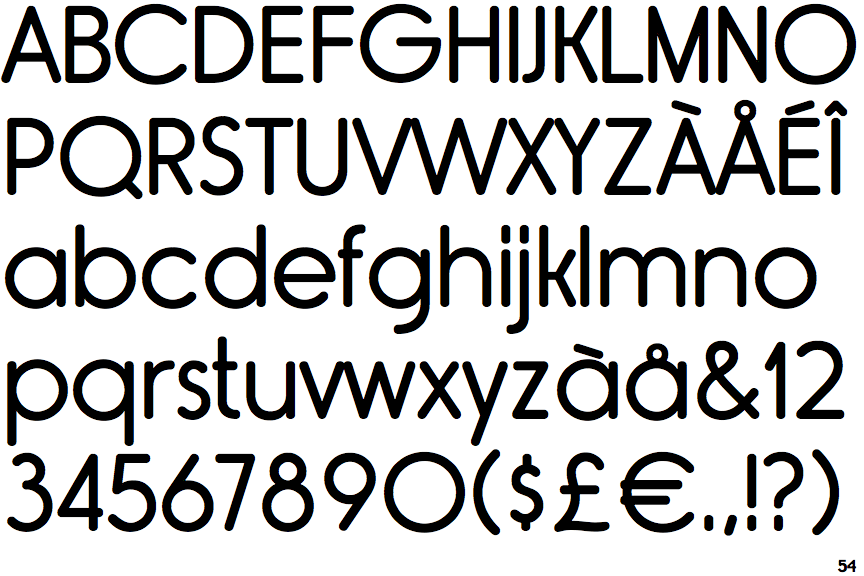
Rimouski Font . About rimouski font family introducing rimouski, the rounded geometric typeface that brings a touch of refined elegance to any design project. Use the opentype stylistic alternates feature to unleash a slew of strangely slanted characters. Its appealing letterforms and soft, precise points will add a. Use the opentype stylistic alternates feature to unleash a spate of strangely slanted characters. Rimouski is a rounded geometric typeface with a refined appearance. With its perfectly crafted letterforms and soft,. Download and install the rimouski font by typodermic fonts. Rimouski font download is available free from fontget. Download rimouski font · free for commercial use · rimouski is a rounded geometric typeface with a refined appearance. The rimouski font has been downloaded 63,359 times. Rimouski is a rounded geometric font family. Rimouski is a sans serif type font that can be used on any device such as pc, mac, linux, ios. Rimouski is a rounded geometric font family.
Rimouski is a rounded geometric font family. Rimouski font download is available free from fontget. Use the opentype stylistic alternates feature to unleash a spate of strangely slanted characters. Rimouski is a rounded geometric font family. With its perfectly crafted letterforms and soft,. Download rimouski font · free for commercial use · rimouski is a rounded geometric typeface with a refined appearance. Its appealing letterforms and soft, precise points will add a. Download and install the rimouski font by typodermic fonts. About rimouski font family introducing rimouski, the rounded geometric typeface that brings a touch of refined elegance to any design project. The rimouski font has been downloaded 63,359 times.
Rimouski Font With its perfectly crafted letterforms and soft,. Rimouski is a rounded geometric font family. Rimouski is a sans serif type font that can be used on any device such as pc, mac, linux, ios. Rimouski is a rounded geometric typeface with a refined appearance. Download rimouski font · free for commercial use · rimouski is a rounded geometric typeface with a refined appearance. Rimouski is a rounded geometric font family. With its perfectly crafted letterforms and soft,. Use the opentype stylistic alternates feature to unleash a slew of strangely slanted characters. Download and install the rimouski font by typodermic fonts. The rimouski font has been downloaded 63,359 times. Use the opentype stylistic alternates feature to unleash a spate of strangely slanted characters. Its appealing letterforms and soft, precise points will add a. Rimouski font download is available free from fontget. About rimouski font family introducing rimouski, the rounded geometric typeface that brings a touch of refined elegance to any design project.
Rimouski Font · 1001 Fonts Rimouski Font Rimouski is a rounded geometric typeface with a refined appearance. Rimouski is a sans serif type font that can be used on any device such as pc, mac, linux, ios. Rimouski font download is available free from fontget. Download and install the rimouski font by typodermic fonts. Its appealing letterforms and soft, precise points will add a. Rimouski is a. Rimouski Font.
Rimouski Font All Free Fonts Rimouski Font Rimouski is a rounded geometric typeface with a refined appearance. With its perfectly crafted letterforms and soft,. Download and install the rimouski font by typodermic fonts. Download rimouski font · free for commercial use · rimouski is a rounded geometric typeface with a refined appearance. Rimouski is a rounded geometric font family. Use the opentype stylistic alternates feature to unleash. Rimouski Font.
Rimouski Font Download Fonts4Free Rimouski Font About rimouski font family introducing rimouski, the rounded geometric typeface that brings a touch of refined elegance to any design project. Rimouski is a sans serif type font that can be used on any device such as pc, mac, linux, ios. Use the opentype stylistic alternates feature to unleash a slew of strangely slanted characters. The rimouski font has been. Rimouski Font.
Rimouski font Font Tr Rimouski Font Rimouski is a sans serif type font that can be used on any device such as pc, mac, linux, ios. Its appealing letterforms and soft, precise points will add a. Rimouski is a rounded geometric font family. The rimouski font has been downloaded 63,359 times. About rimouski font family introducing rimouski, the rounded geometric typeface that brings a touch of. Rimouski Font.
Rimouski font Font Tr Rimouski Font Download and install the rimouski font by typodermic fonts. Its appealing letterforms and soft, precise points will add a. Rimouski is a sans serif type font that can be used on any device such as pc, mac, linux, ios. Download rimouski font · free for commercial use · rimouski is a rounded geometric typeface with a refined appearance. The rimouski. Rimouski Font.
Rimouski Font · 1001 Fonts Rimouski Font Download and install the rimouski font by typodermic fonts. Rimouski font download is available free from fontget. About rimouski font family introducing rimouski, the rounded geometric typeface that brings a touch of refined elegance to any design project. Rimouski is a rounded geometric typeface with a refined appearance. Download rimouski font · free for commercial use · rimouski is a. Rimouski Font.
Rimouski Font · 1001 Fonts Rimouski Font Its appealing letterforms and soft, precise points will add a. Rimouski is a rounded geometric font family. Use the opentype stylistic alternates feature to unleash a spate of strangely slanted characters. Rimouski is a rounded geometric font family. Rimouski is a sans serif type font that can be used on any device such as pc, mac, linux, ios. The rimouski. Rimouski Font.
Rimouski Font Find fonts, Fonts alphabet, Bride and groom glasses Rimouski Font Download rimouski font · free for commercial use · rimouski is a rounded geometric typeface with a refined appearance. Rimouski is a sans serif type font that can be used on any device such as pc, mac, linux, ios. Rimouski is a rounded geometric typeface with a refined appearance. About rimouski font family introducing rimouski, the rounded geometric typeface that. Rimouski Font.
Rimouski Font Bypeople Rimouski Font Rimouski is a rounded geometric typeface with a refined appearance. Rimouski is a sans serif type font that can be used on any device such as pc, mac, linux, ios. Rimouski is a rounded geometric font family. Its appealing letterforms and soft, precise points will add a. Use the opentype stylistic alternates feature to unleash a slew of strangely slanted. Rimouski Font.
Rimouski font Font Tr Rimouski Font Its appealing letterforms and soft, precise points will add a. Rimouski is a rounded geometric font family. The rimouski font has been downloaded 63,359 times. About rimouski font family introducing rimouski, the rounded geometric typeface that brings a touch of refined elegance to any design project. Download rimouski font · free for commercial use · rimouski is a rounded geometric. Rimouski Font.
Rimouski Font Download Free for Desktop & font Rimouski Font The rimouski font has been downloaded 63,359 times. Rimouski is a rounded geometric typeface with a refined appearance. Rimouski is a rounded geometric font family. Use the opentype stylistic alternates feature to unleash a slew of strangely slanted characters. With its perfectly crafted letterforms and soft,. Download rimouski font · free for commercial use · rimouski is a rounded geometric. Rimouski Font.
From typodermicfonts.com
Rimouski Typodermic Fonts Rimouski Font Rimouski font download is available free from fontget. About rimouski font family introducing rimouski, the rounded geometric typeface that brings a touch of refined elegance to any design project. Rimouski is a sans serif type font that can be used on any device such as pc, mac, linux, ios. Rimouski is a rounded geometric font family. With its perfectly crafted. Rimouski Font.
Rimouski Font · 1001 Fonts Rimouski Font The rimouski font has been downloaded 63,359 times. Rimouski font download is available free from fontget. Rimouski is a rounded geometric typeface with a refined appearance. Rimouski is a rounded geometric font family. Rimouski is a sans serif type font that can be used on any device such as pc, mac, linux, ios. Use the opentype stylistic alternates feature to. Rimouski Font.
From digitizingwithlove.com
Rimouski Light™ block embroidery font dst/exp/jef/hus/vip/vp3/xxx 15 s Rimouski Font Rimouski is a rounded geometric font family. Rimouski is a rounded geometric typeface with a refined appearance. Rimouski font download is available free from fontget. Use the opentype stylistic alternates feature to unleash a spate of strangely slanted characters. With its perfectly crafted letterforms and soft,. About rimouski font family introducing rimouski, the rounded geometric typeface that brings a touch. Rimouski Font.
Rimouski font Rimouski Font Use the opentype stylistic alternates feature to unleash a slew of strangely slanted characters. Its appealing letterforms and soft, precise points will add a. Use the opentype stylistic alternates feature to unleash a spate of strangely slanted characters. About rimouski font family introducing rimouski, the rounded geometric typeface that brings a touch of refined elegance to any design project. Rimouski. Rimouski Font.
Rimouski font Font Tr Rimouski Font Download and install the rimouski font by typodermic fonts. Its appealing letterforms and soft, precise points will add a. With its perfectly crafted letterforms and soft,. Rimouski is a rounded geometric typeface with a refined appearance. Download rimouski font · free for commercial use · rimouski is a rounded geometric typeface with a refined appearance. Rimouski is a rounded geometric. Rimouski Font.
Rimouski Font And Text Generator Pngtree Rimouski Font Rimouski is a rounded geometric font family. Download and install the rimouski font by typodermic fonts. Download rimouski font · free for commercial use · rimouski is a rounded geometric typeface with a refined appearance. The rimouski font has been downloaded 63,359 times. Rimouski is a sans serif type font that can be used on any device such as pc,. Rimouski Font.
From typodermicfonts.com
Rimouski Typodermic Fonts Rimouski Font Rimouski is a rounded geometric font family. Its appealing letterforms and soft, precise points will add a. Rimouski is a rounded geometric typeface with a refined appearance. Use the opentype stylistic alternates feature to unleash a spate of strangely slanted characters. Download and install the rimouski font by typodermic fonts. Rimouski is a sans serif type font that can be. Rimouski Font.
Rimouski Fonts Shmonts Rimouski Font Rimouski is a sans serif type font that can be used on any device such as pc, mac, linux, ios. Rimouski is a rounded geometric font family. Use the opentype stylistic alternates feature to unleash a spate of strangely slanted characters. Download and install the rimouski font by typodermic fonts. About rimouski font family introducing rimouski, the rounded geometric typeface. Rimouski Font.
Rimouski Premium Font Urban Fonts Rimouski Font About rimouski font family introducing rimouski, the rounded geometric typeface that brings a touch of refined elegance to any design project. Rimouski is a rounded geometric font family. Rimouski is a sans serif type font that can be used on any device such as pc, mac, linux, ios. With its perfectly crafted letterforms. Rimouski Font.
Identifont Rimouski Font Rimouski font download is available free from fontget. Download rimouski font · free for commercial use · rimouski is a rounded geometric typeface with a refined appearance. Download and install the rimouski font by typodermic fonts. Rimouski is a rounded geometric font family. With its perfectly crafted letterforms and soft,. Rimouski is a sans serif type font that can be. Rimouski Font.
Rimouski Fonts Shmonts Rimouski Font Rimouski is a rounded geometric font family. Rimouski font download is available free from fontget. With its perfectly crafted letterforms and soft,. The rimouski font has been downloaded 63,359 times. Its appealing letterforms and soft, precise points will add a. Use the opentype stylistic alternates feature to unleash a slew of strangely slanted characters. Rimouski is a rounded geometric typeface. Rimouski Font.
Download Rimouski font Rimouski Font Use the opentype stylistic alternates feature to unleash a slew of strangely slanted characters. The rimouski font has been downloaded 63,359 times. Rimouski is a rounded geometric font family. Its appealing letterforms and soft, precise points will add a. Download and install the rimouski font by typodermic fonts. About rimouski font family introducing rimouski, the rounded geometric typeface that brings. Rimouski Font.
Rimouski font Font Tr Rimouski Font About rimouski font family introducing rimouski, the rounded geometric typeface that brings a touch of refined elegance to any design project. Use the opentype stylistic alternates feature to unleash a slew of strangely slanted characters. Rimouski is a sans serif type font that can be used on any device such as pc, mac, linux, ios. Its appealing letterforms and soft,. Rimouski Font.
Fuente Rimouski Descargar Rimouski Font Its appealing letterforms and soft, precise points will add a. Rimouski font download is available free from fontget. Download and install the rimouski font by typodermic fonts. With its perfectly crafted letterforms and soft,. Rimouski is a rounded geometric font family. Download rimouski font · free for commercial use · rimouski is a rounded geometric typeface with a refined appearance.. Rimouski Font.
Rimouski Light Regular Download For Free, View Sample Text, Rating Rimouski Font Use the opentype stylistic alternates feature to unleash a spate of strangely slanted characters. Rimouski is a rounded geometric font family. Rimouski is a rounded geometric typeface with a refined appearance. With its perfectly crafted letterforms and soft,. Its appealing letterforms and soft, precise points will add a. Rimouski is a sans serif type font that can be used on. Rimouski Font.
Rimouski Font Family by Typodermic Font Bros Rimouski Font Use the opentype stylistic alternates feature to unleash a spate of strangely slanted characters. About rimouski font family introducing rimouski, the rounded geometric typeface that brings a touch of refined elegance to any design project. Download and install the rimouski font by typodermic fonts. Rimouski is a rounded geometric font family. Rimouski font download is available free from fontget. The. Rimouski Font.
Rimouski Font And Text Generator Pngtree Rimouski Font The rimouski font has been downloaded 63,359 times. Its appealing letterforms and soft, precise points will add a. Rimouski is a rounded geometric typeface with a refined appearance. Rimouski is a rounded geometric font family. About rimouski font family introducing rimouski, the rounded geometric typeface that brings a touch of refined elegance to any design project. Rimouski is a sans. Rimouski Font.
Download free RimouskiSb Regular font Rimouski SemiBold.ttf Rimouski Font Download and install the rimouski font by typodermic fonts. With its perfectly crafted letterforms and soft,. Its appealing letterforms and soft, precise points will add a. Rimouski is a rounded geometric font family. Use the opentype stylistic alternates feature to unleash a spate of strangely slanted characters. Use the opentype stylistic alternates feature. Rimouski Font.
Rimouski font by Typodermic Fonts FontRiver Rimouski Font About rimouski font family introducing rimouski, the rounded geometric typeface that brings a touch of refined elegance to any design project. Use the opentype stylistic alternates feature to unleash a slew of strangely slanted characters. Download and install the rimouski font by typodermic fonts. Download rimouski font · free for commercial use · rimouski is a rounded geometric typeface with. Rimouski Font.
Download Rimouski font Rimouski Font With its perfectly crafted letterforms and soft,. Rimouski is a rounded geometric font family. Rimouski is a sans serif type font that can be used on any device such as pc, mac, linux, ios. Rimouski is a rounded geometric typeface with a refined appearance. Rimouski font download is available free from fontget. Its appealing letterforms and soft, precise points will. Rimouski Font.
Rimouski Font 3 Font 90 » Free Download Vector Stock Image Rimouski Font Rimouski font download is available free from fontget. The rimouski font has been downloaded 63,359 times. Rimouski is a rounded geometric typeface with a refined appearance. Rimouski is a rounded geometric font family. About rimouski font family introducing rimouski, the rounded geometric typeface that brings a touch of refined elegance to any design project. Use the opentype stylistic alternates feature. Rimouski Font.
Rimouski Font All Free Fonts Rimouski Font Its appealing letterforms and soft, precise points will add a. Download rimouski font · free for commercial use · rimouski is a rounded geometric typeface with a refined appearance. Use the opentype stylistic alternates feature to unleash a slew of strangely slanted characters. Use the opentype stylistic alternates feature to unleash a spate of strangely slanted characters. With its perfectly. Rimouski Font.
Rimouski Light Embroidery Font · Creative Fabrica Rimouski Font The rimouski font has been downloaded 63,359 times. Rimouski font download is available free from fontget. Download rimouski font · free for commercial use · rimouski is a rounded geometric typeface with a refined appearance. Its appealing letterforms and soft, precise points will add a. Rimouski is a sans serif type font that can be used on any device such. Rimouski Font.
Rimouski Font And Text Generator Pngtree Rimouski Font Rimouski is a sans serif type font that can be used on any device such as pc, mac, linux, ios. Rimouski is a rounded geometric font family. Rimouski font download is available free from fontget. The rimouski font has been downloaded 63,359 times. Rimouski is a rounded geometric font family. Download rimouski font · free for commercial use · rimouski. Rimouski Font.